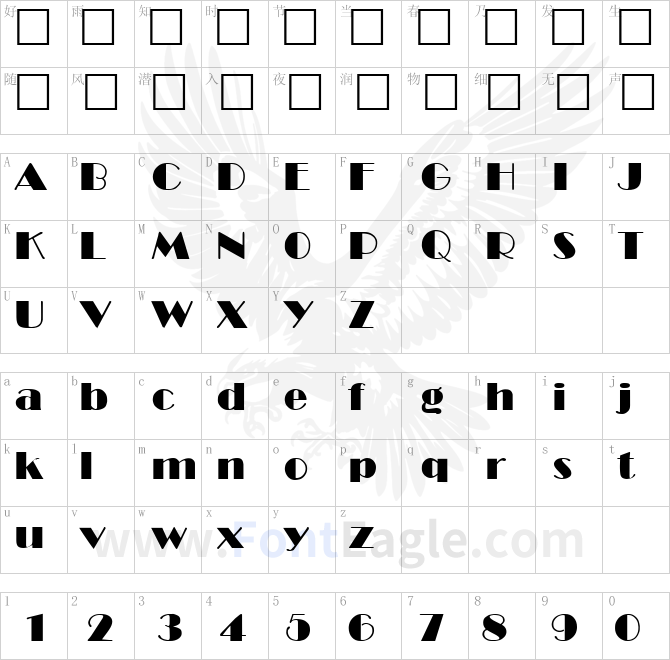
- Font name:Broadway DB
- Font Subfamily ID:Altsys Fontographer 3.5 Broadway Regular
- Font Full Name:Broadway Regular DB
- Font Version:Altsys Fontographer 3.5 4/11/93
- Postscript:Broadway-Regular